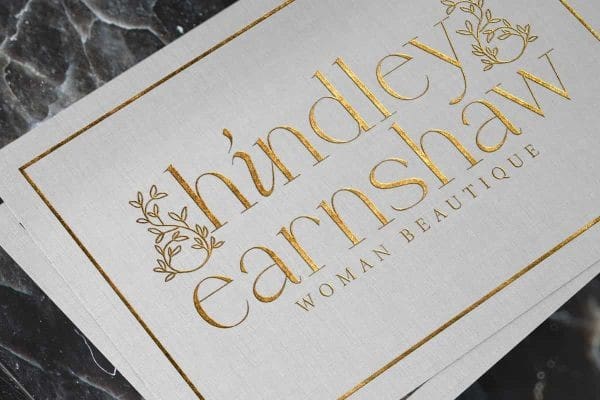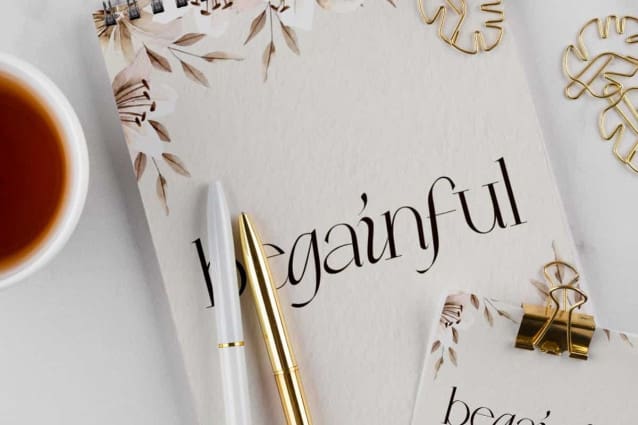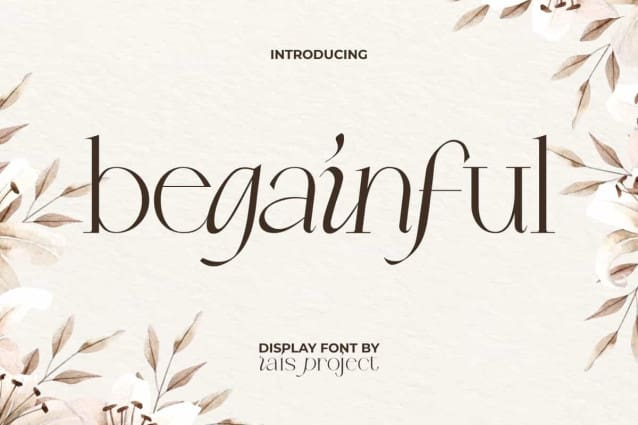
Begainful Font
Begainful Font is a gorgeous serif display font. The characters in this font have a unique minimalist style and italic for uppercase version. It will be good for any designs, such as brand image, custom design, flyer, invitation, label, magazine cover, marketing material, menu, poster, product packaging, quotes, signage, stationery, website page, and more!
Begainful Font includes a complete set of basic Uppercase and Lowercase characters in one size, namely ALL lowercase letters but with slight differences in appearance, Numerals, and large range of Punctuation. This elegant font will be suitable for various industries, such as advertising, beauty product, café, crafting, event or wedding organizer, fashion, furniture, jewelry and accessories, marketing, movie, printing, publishing, real estate, restaurant, spa salon, etc.